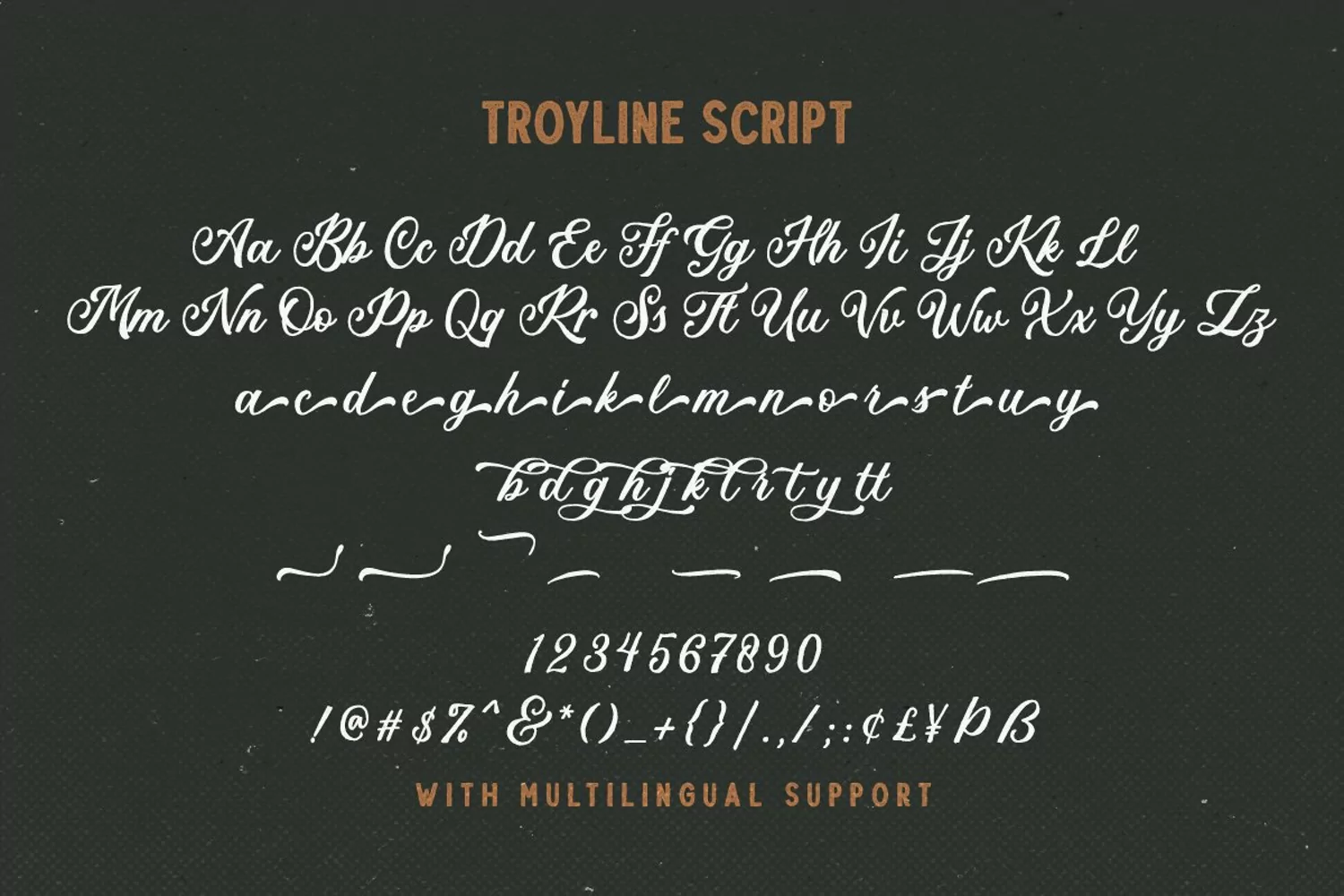
Troyline is my newest font duo. Contain two fonts, the organic script and sans. Comes with Rough and Stamp style. You can use this font for every project. Suitable for branding logo, hand lettering, or apparel design. This ultimate font duo also come with FREE LOGOTYPE that you can edit for your needs. This font duo also support multilingual, number and symbol, alternates, swash, and underline. Also this font already PUA Encoded.